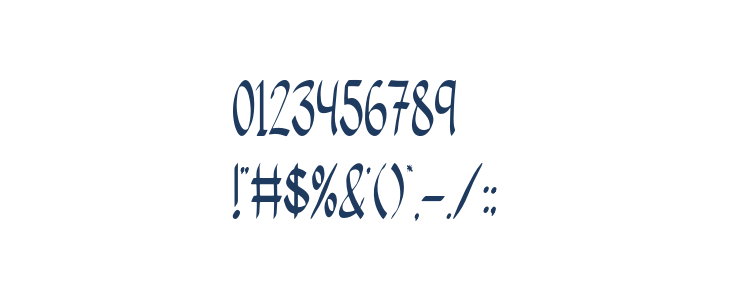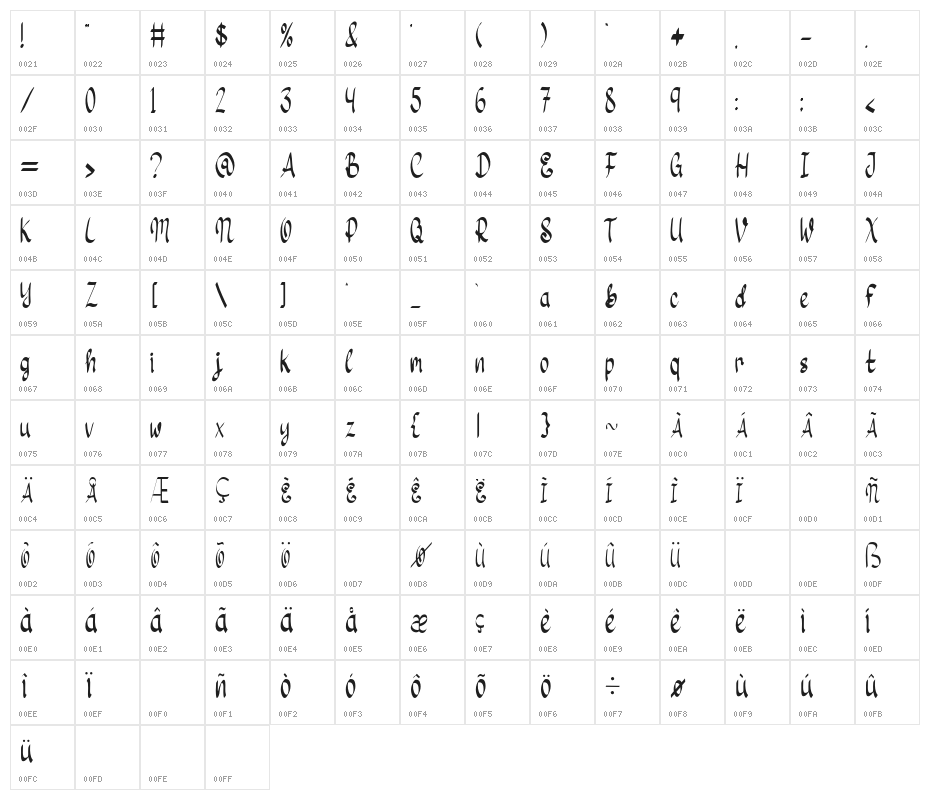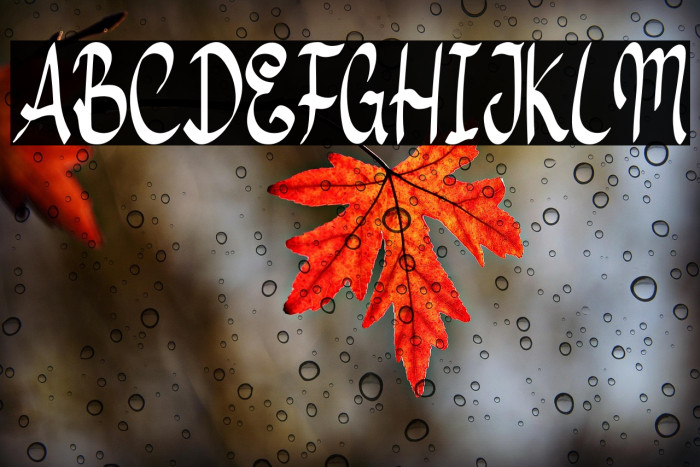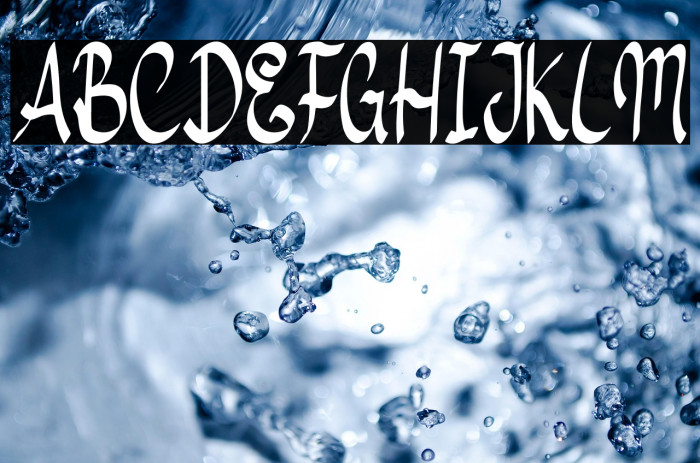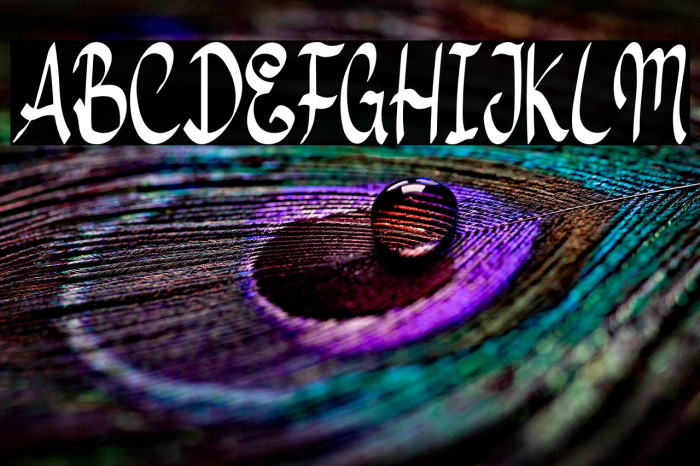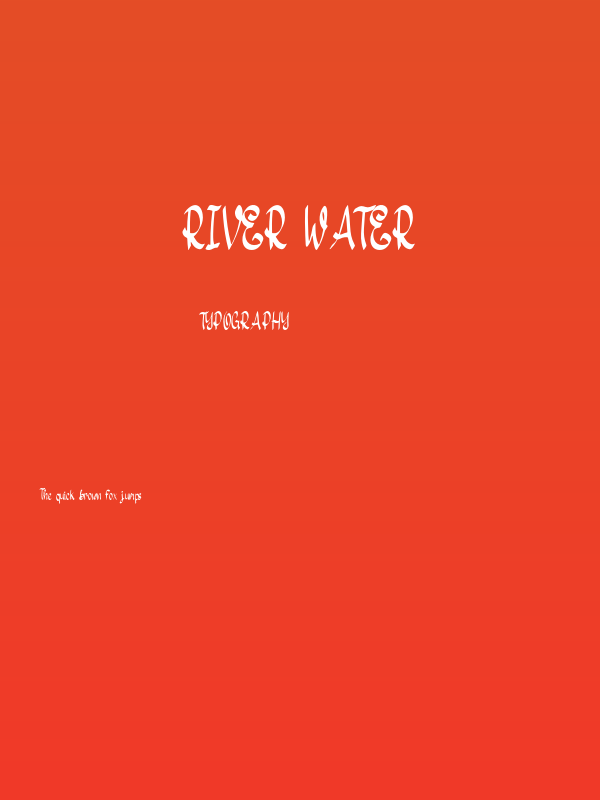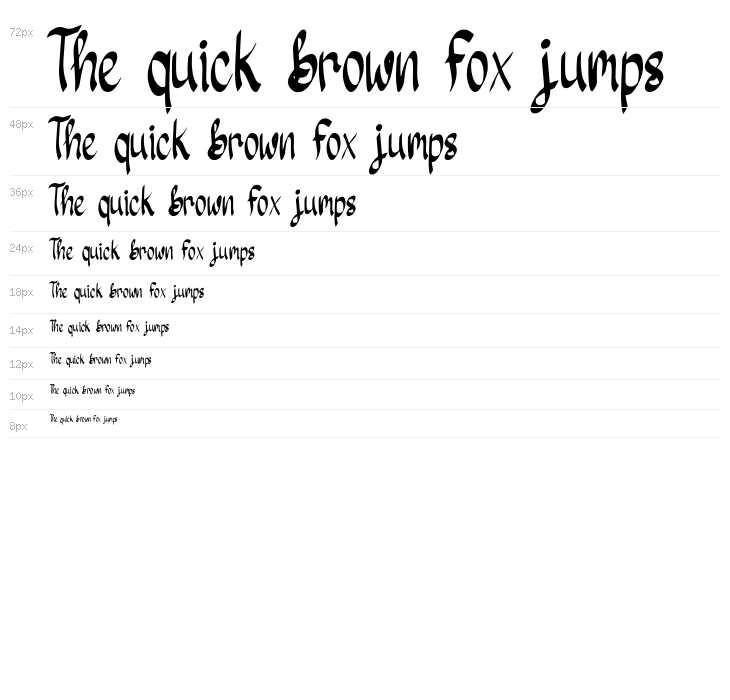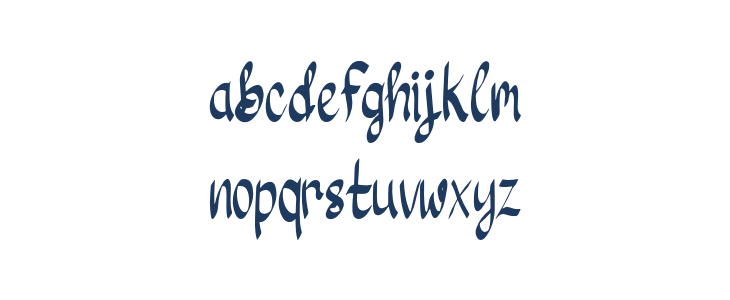
River Water Font
River Water Description
This font features a dynamic and fluid style, reminiscent of calligraphy with a modern twist. The characters exhibit a flowing, cursive form, with elegant curves and varying stroke widths that create a sense of movement and grace. The uppercase letters are bold and commanding, while the lowercase letters maintain a consistent rhythm, enhancing readability. The numerals are distinct and maintain the same fluidity, making them suitable for a variety of contexts. Special characters are creatively integrated, maintaining the overall aesthetic. This font is ideal for projects that require a touch of elegance and sophistication.